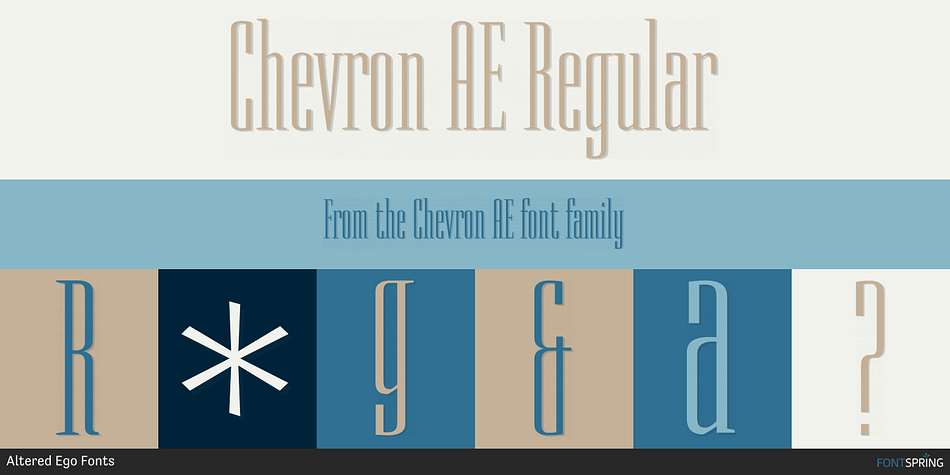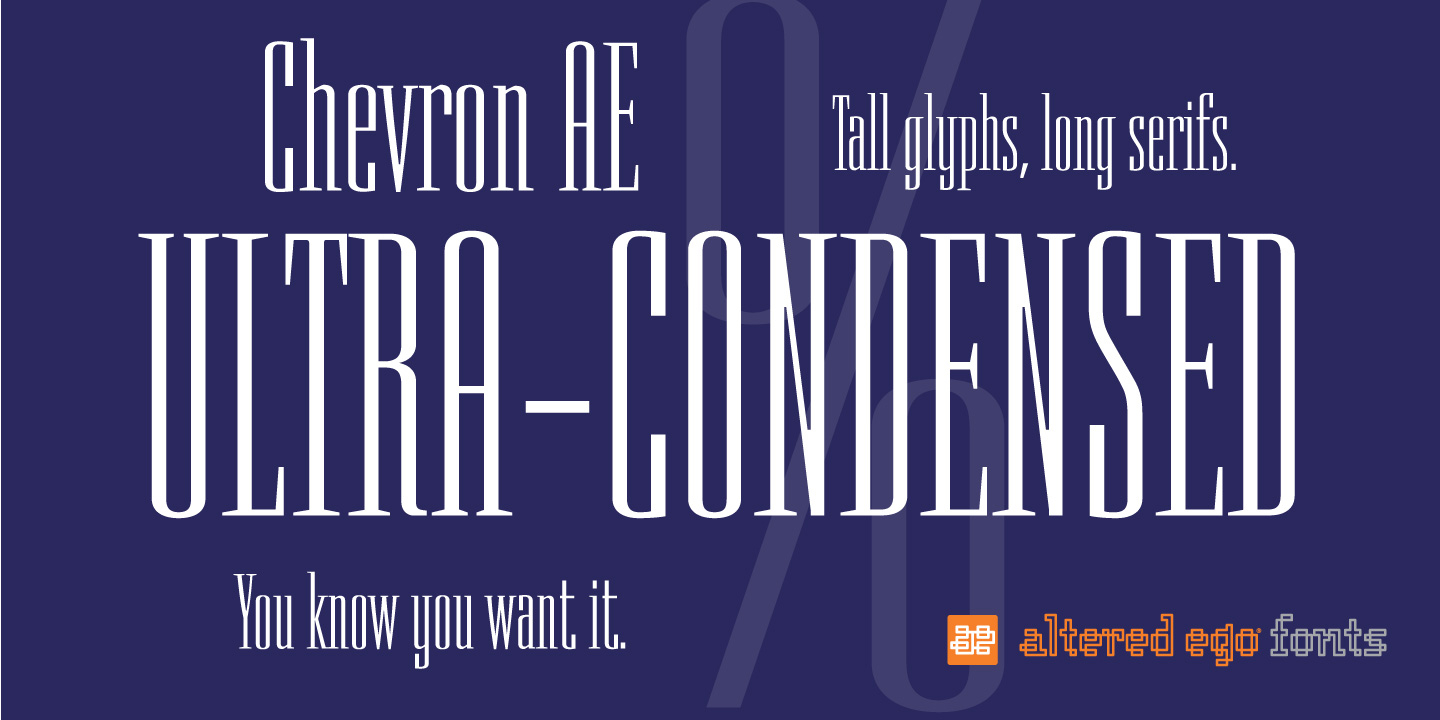
Chevron AE Regular
Designed by Brian Sooy, Chevron AE is a display serif and serif font published by Altered Ego Fonts.
Chevron is an ultra-condensed font that’s great for books, packaging, movie posters and other designs that need a contemporary typeface, and when you don’t have much room!
For that tight fit, STF Chevron is perfect. An ultra-condensed display font, with a complete character set.
The name? It’s named after a heraldic symbol, but the shapes of the serifs reflect that as well. With some art deco overtones, try Chevron in places that you might want a simple art deco typeface.
How should you use it? It’s perfect for posters, packaging and advertising, CD covers and publications. Fully hinted and exquisitely kerned, Chevron will be one of your favorite faces for tall copy that needs to get noticed. It’s really ideal for calendars when you want big numbers without losing space for writing in the date fields.